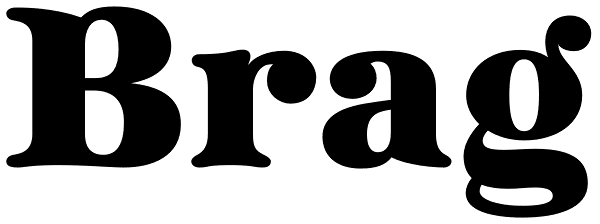
Brag
Brag is a bold as brass display serif with a slight Tuscan flavor. Ideal for headlines, logos and posters, or as an alternative to staples like Cooper Black. OpenType features: ligatures and stylistic alternates. Ligatures are included for the usual...